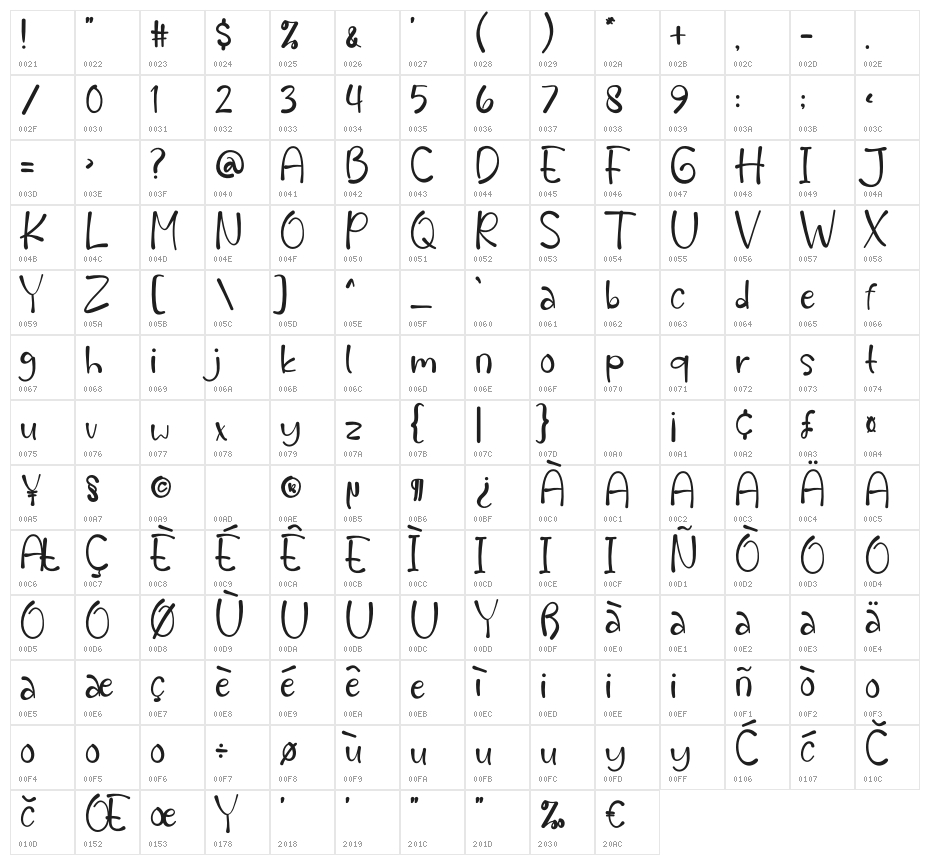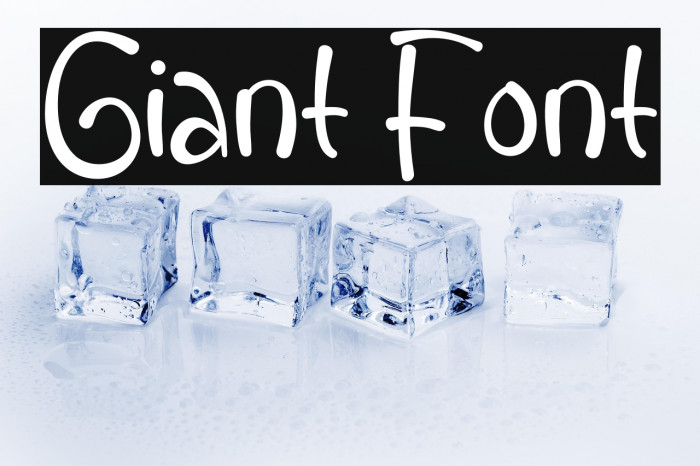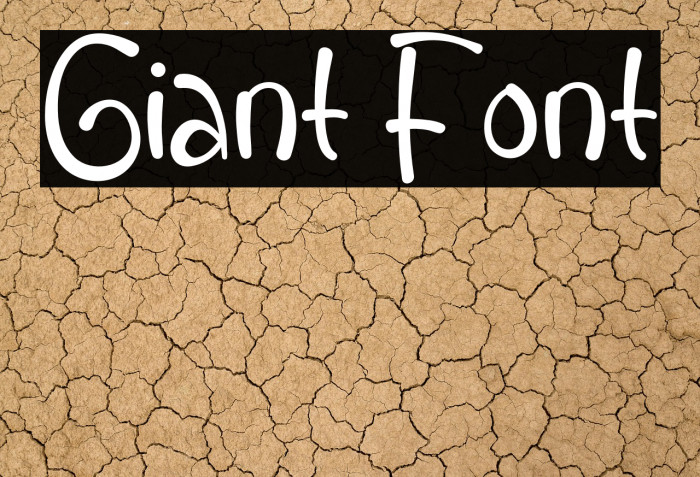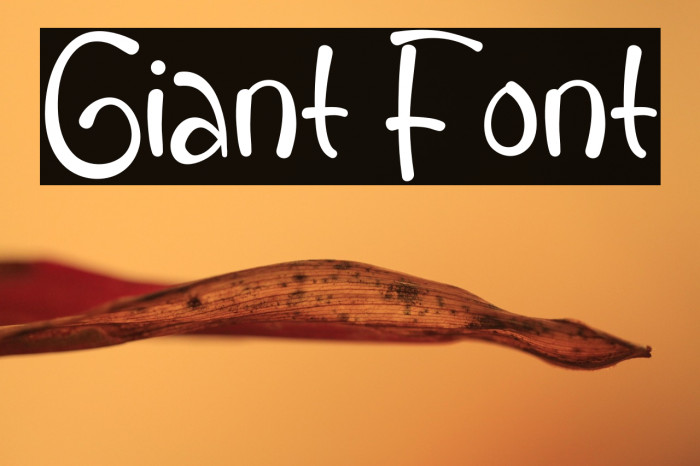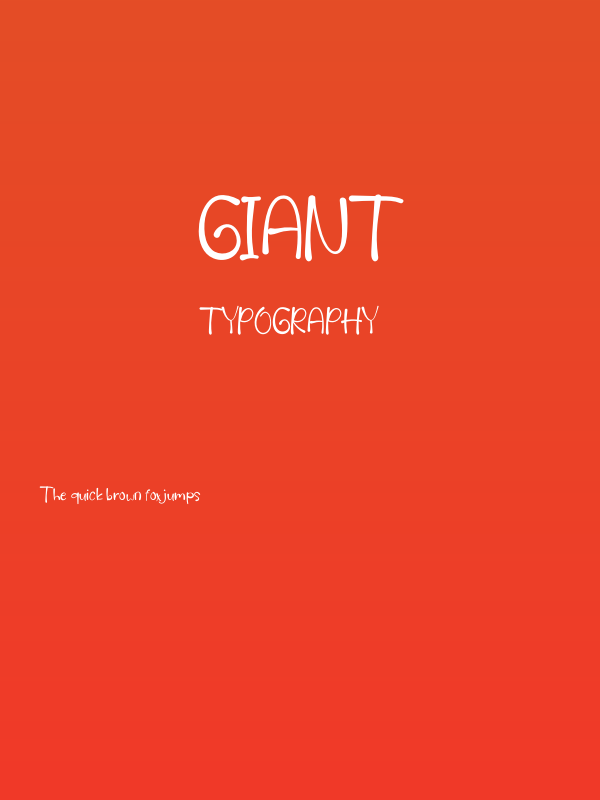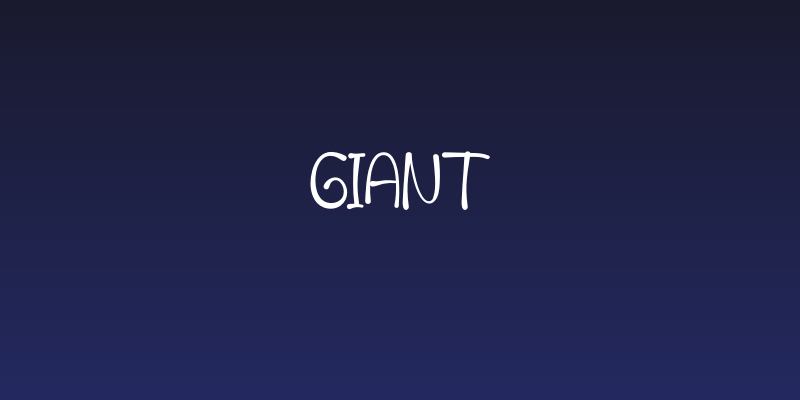
Giant Font
Giant Description
This playful and energetic font features a handwritten style with a casual and friendly appearance. The letters are slightly irregular, giving it a natural and organic feel. The uppercase and lowercase letters maintain a consistent flow, with rounded edges and a slight tilt that adds to its charm. The numbers and special characters are designed to match the overall style, ensuring a cohesive look. This font is perfect for projects that require a personal touch or a fun, informal vibe.
| Overall Style | Casual, Playful |
| Use Case | Headlines, Informal text, Creative projects |
| Proposed Projects | Ideal for greeting cards, children's books, playful branding, and social media graphics. |